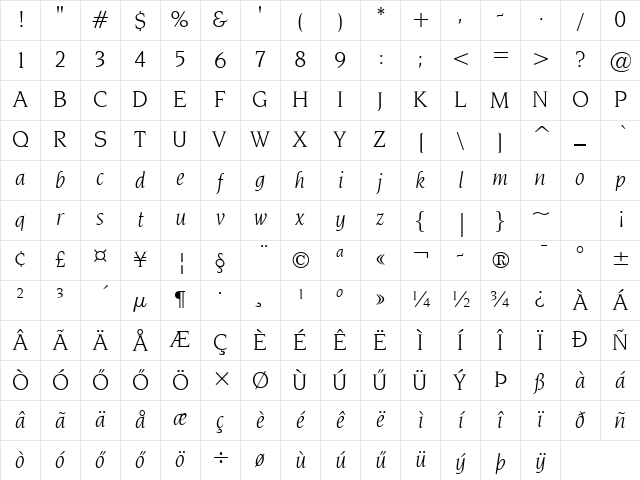
Huni_Novarese Bk BT Italic Regular
Design Context for Huni_Novarese Bk BT Italic
Huni_Novarese Bk BT Italic is a composed and adaptable typeface that performs quietly and consistently across a wide range of design contexts. The slanted form adds forward momentum and visual energy.
Pro Tip: Use Huni_Novarese Bk BT Italic for emphasis, pull quotes, and subheadings where its slanted energy can add rhythm to the layout.